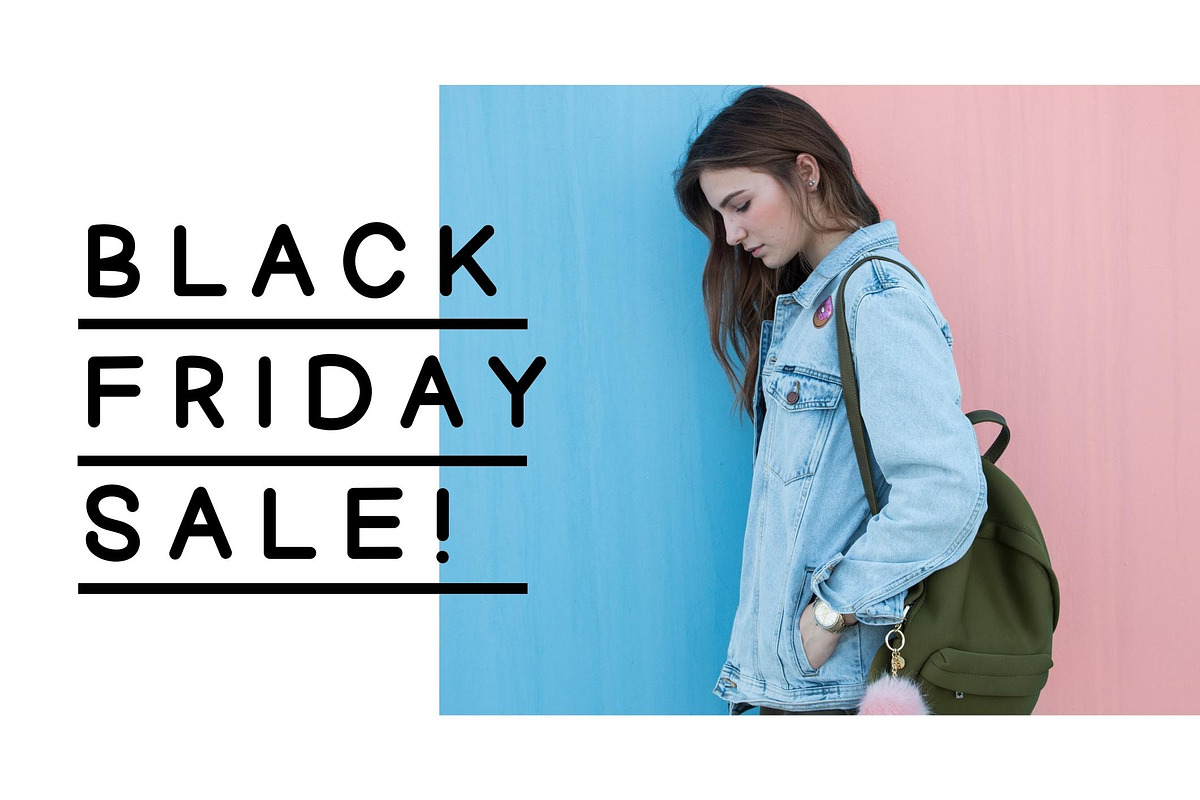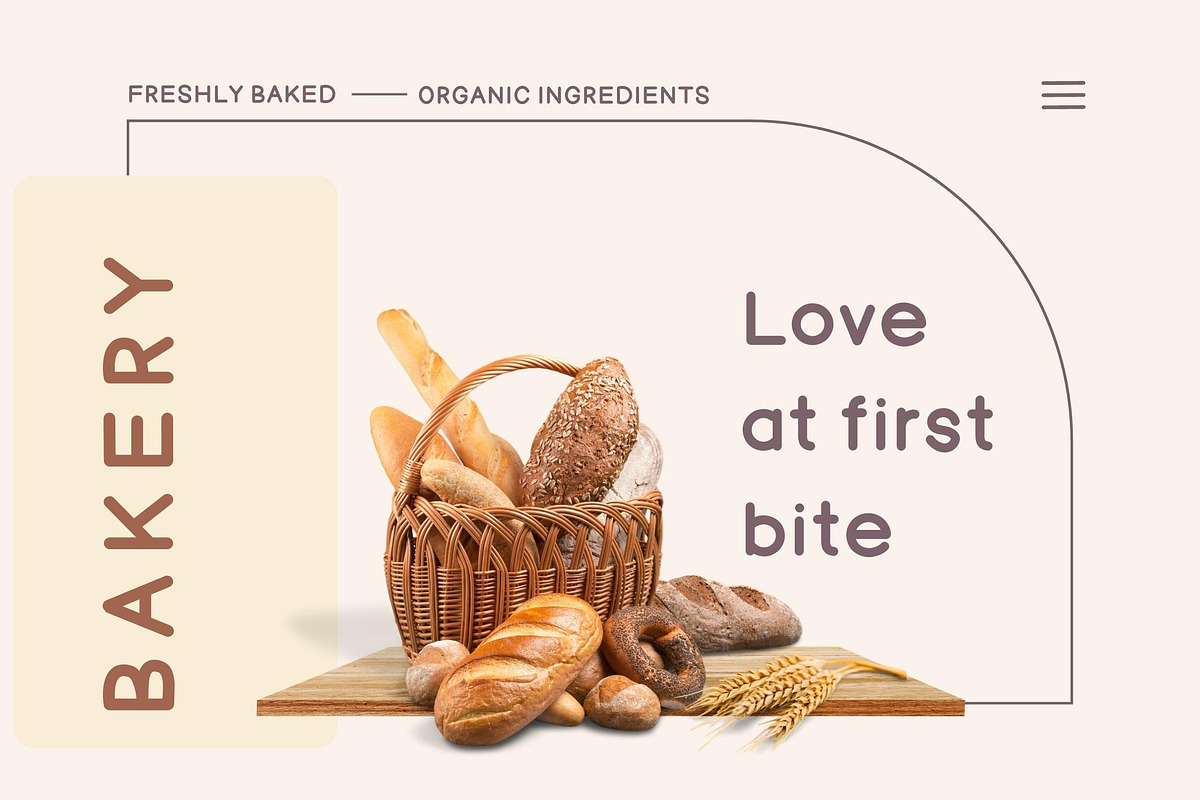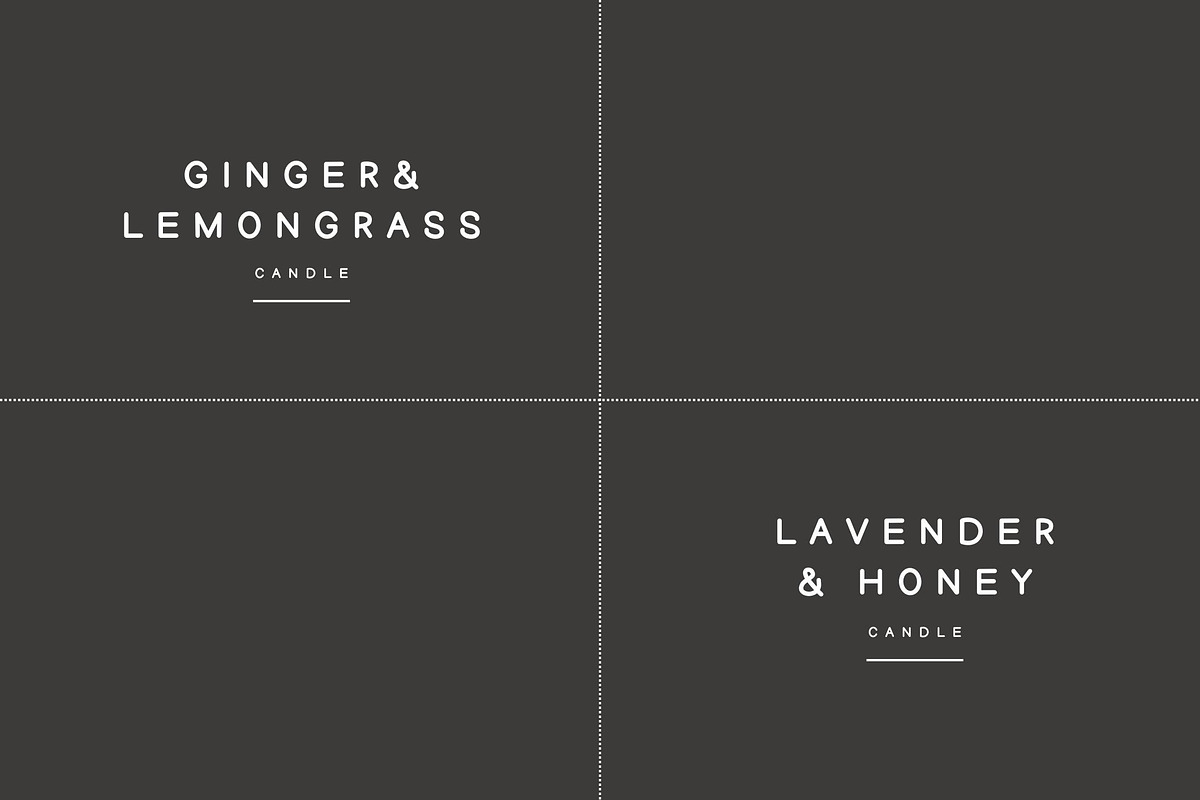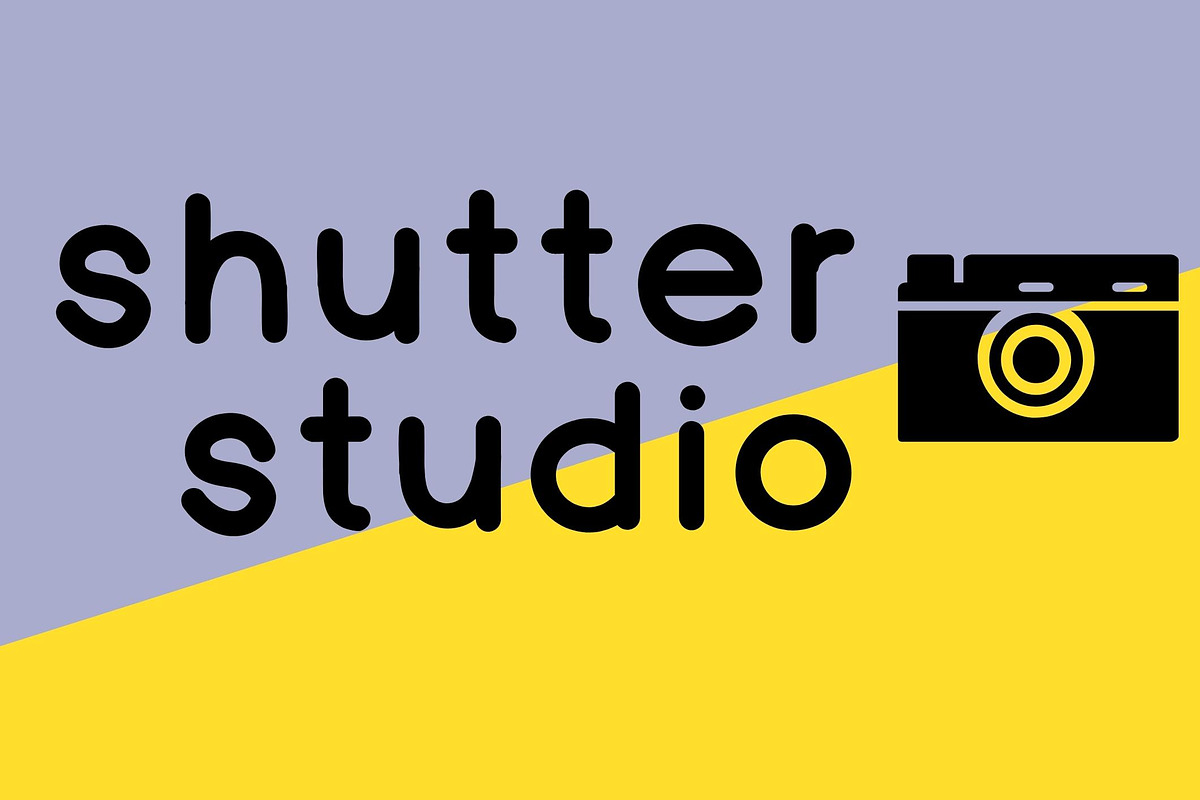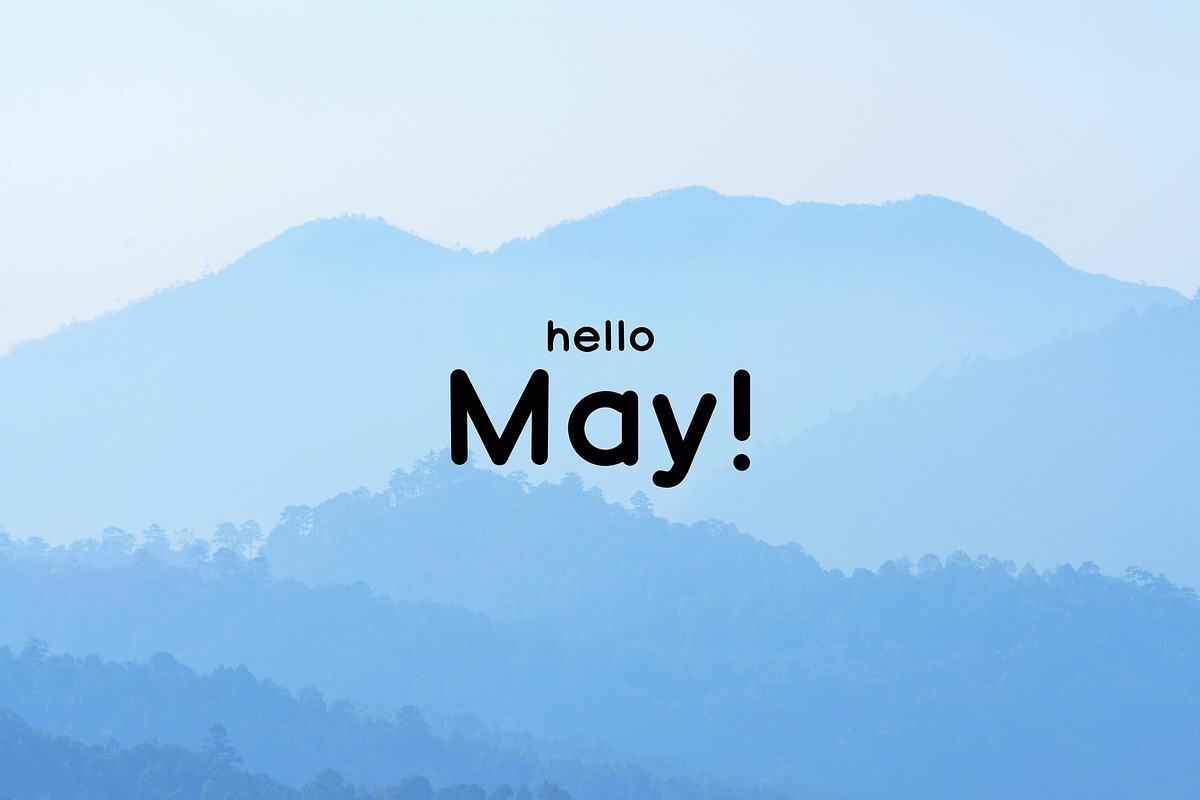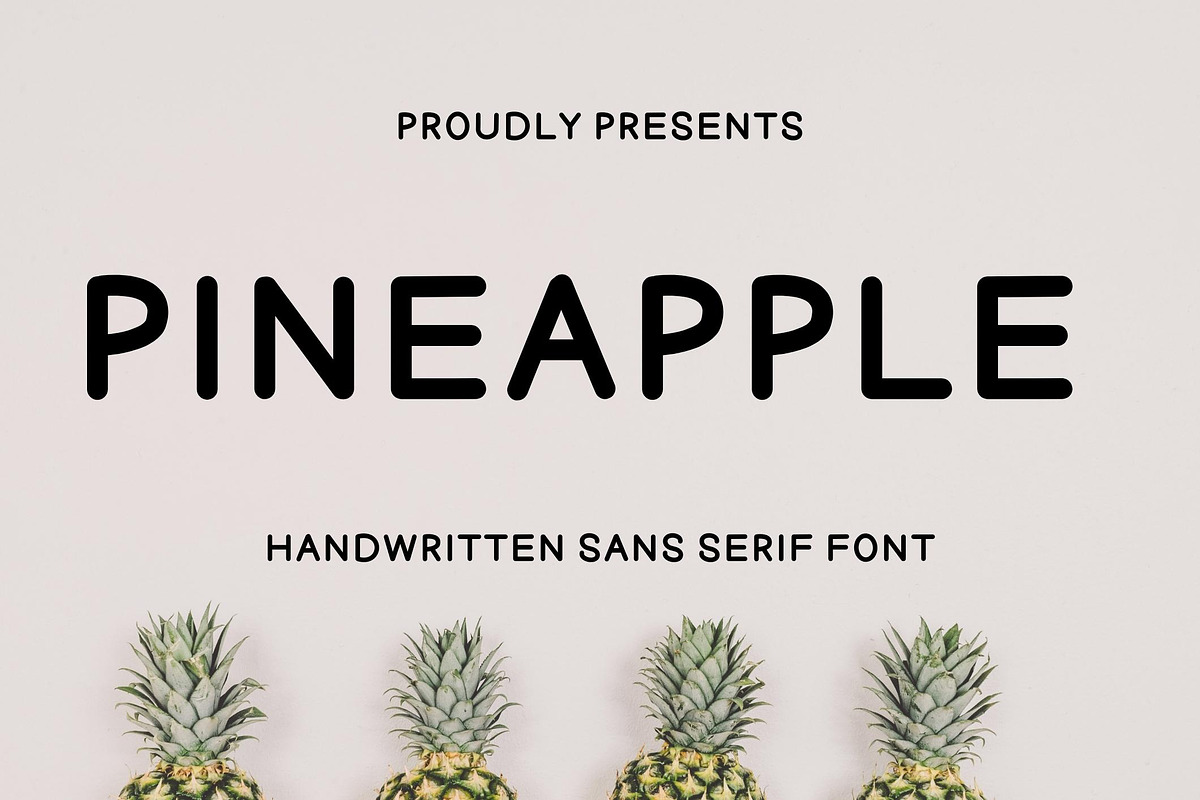
Pineapple - Handwritten sans serif
Pineapple is a handwritten bold sans serif font.
This font is perfect for advertising, headings, blogs, logos, branding and more!
Features: Uppercase, Lowercase, Numbers, punctuation & Multilingual support.